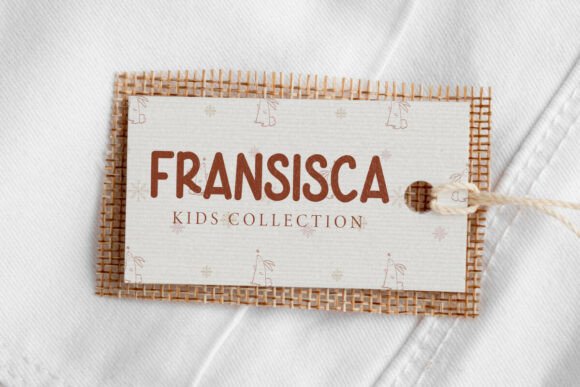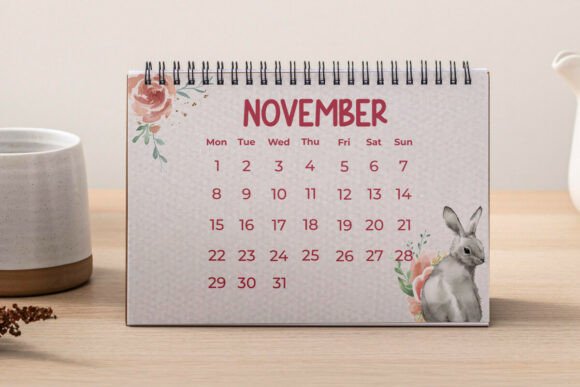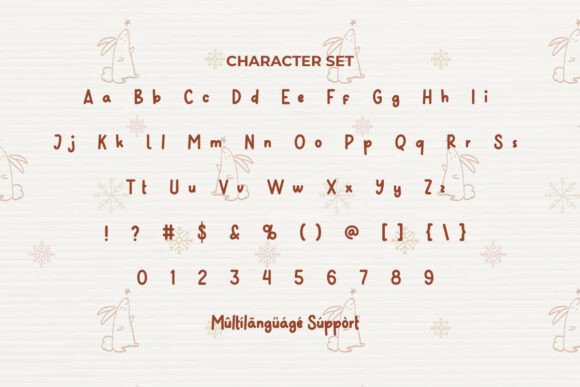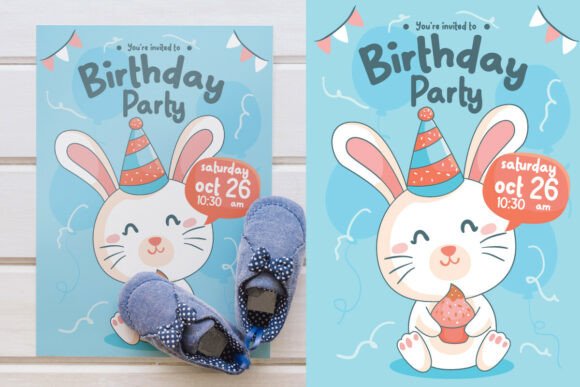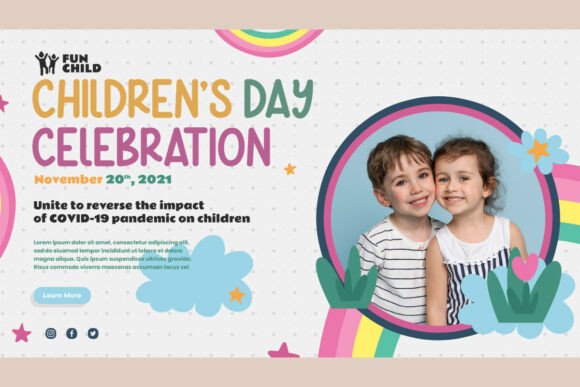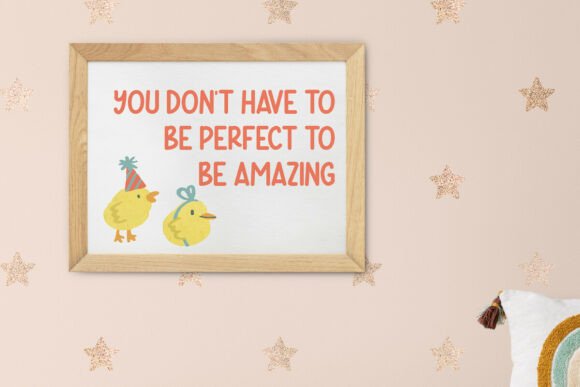
Introduction to Rabbit Show Font
Rabbit Show is a playful modern handwritten font.
This font has a shape that looks natural and is suitable for designs that require an adorable appearance You can use this font for any designs, such as brand image, catalog, comic books, cover, custom design, greeting card, invitation, label, poster, product packaging, quote, stationery, web, and more.